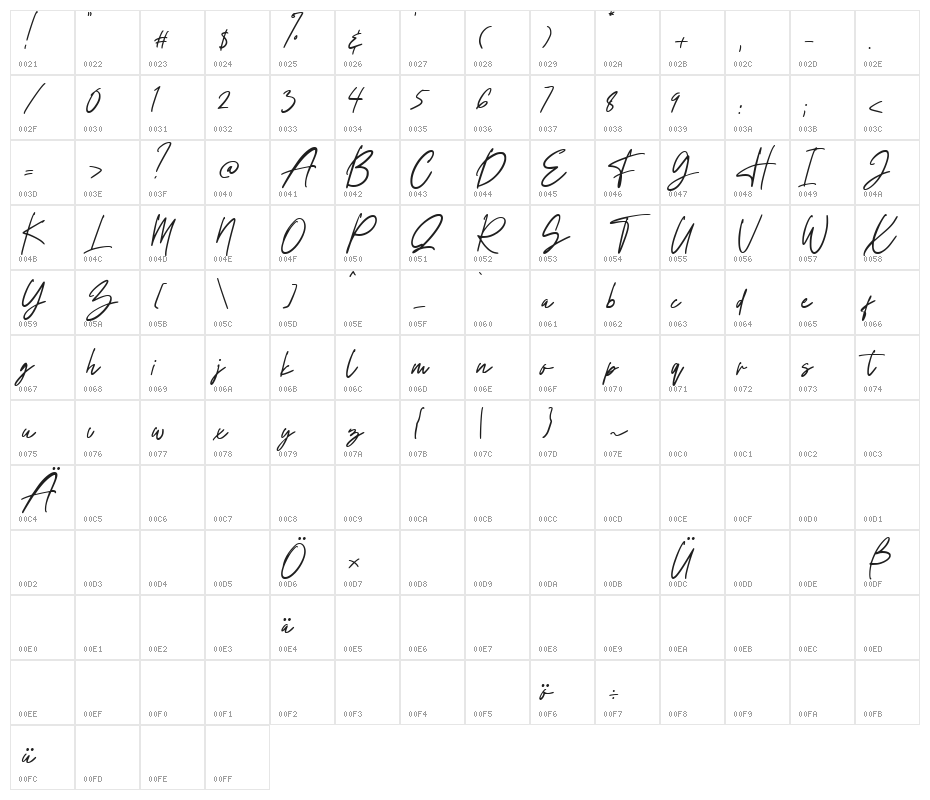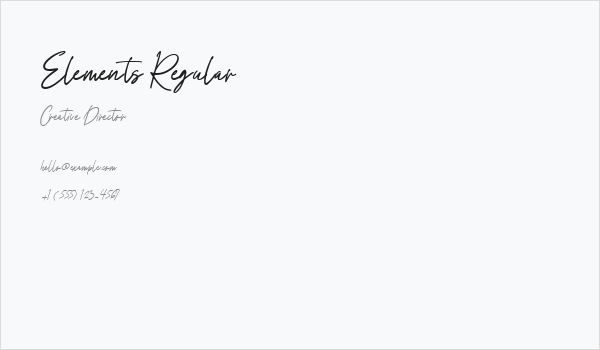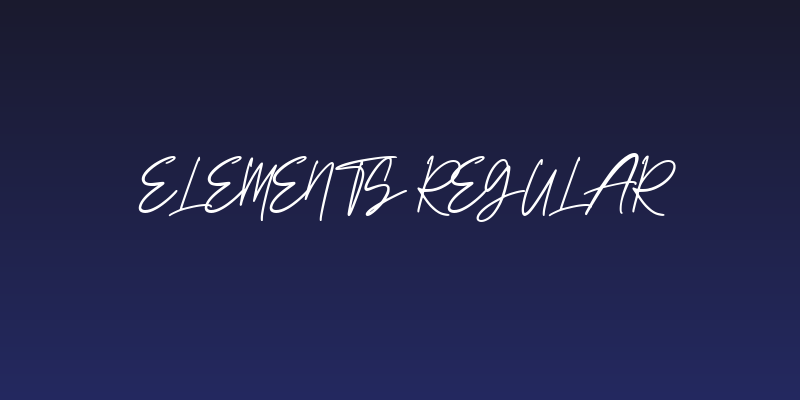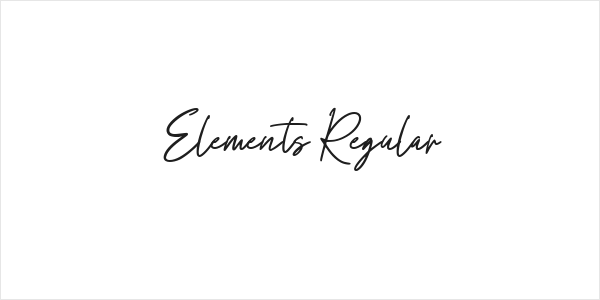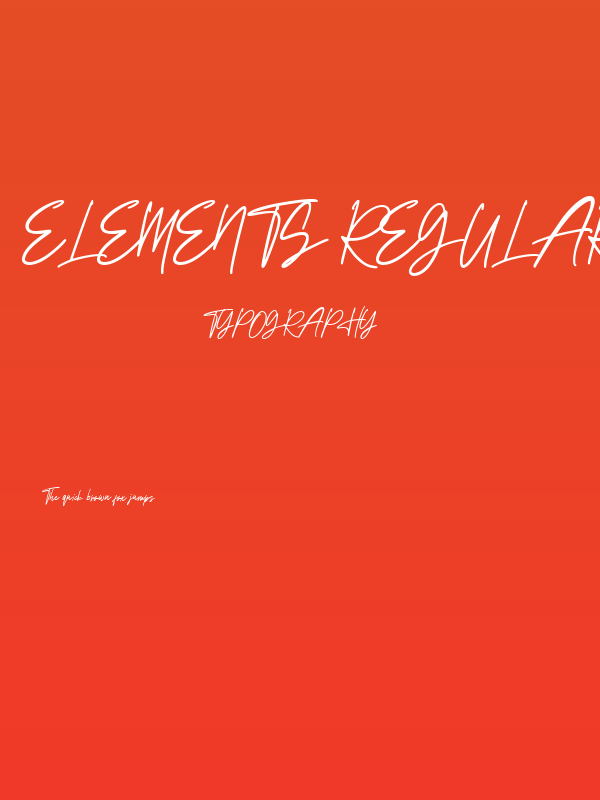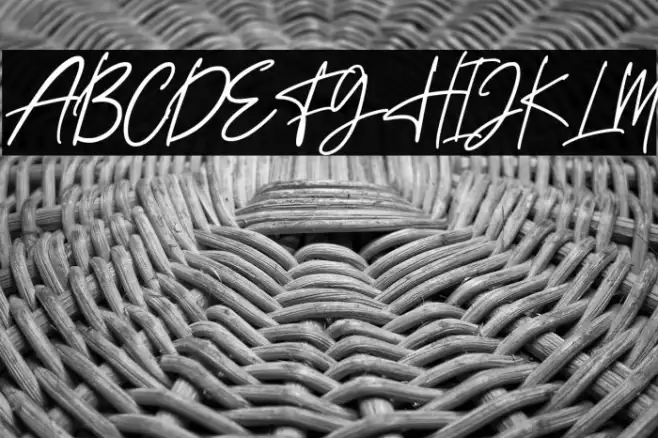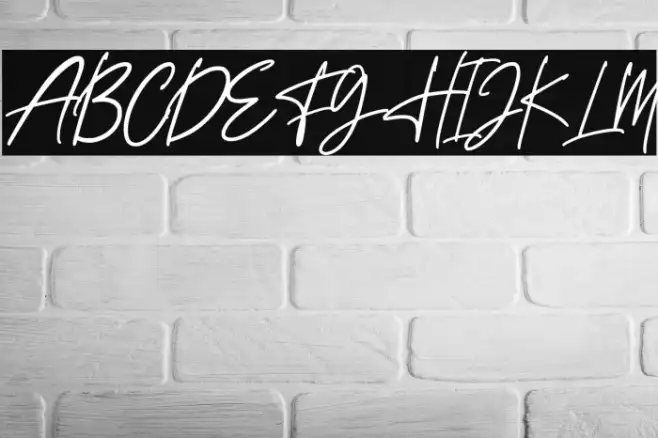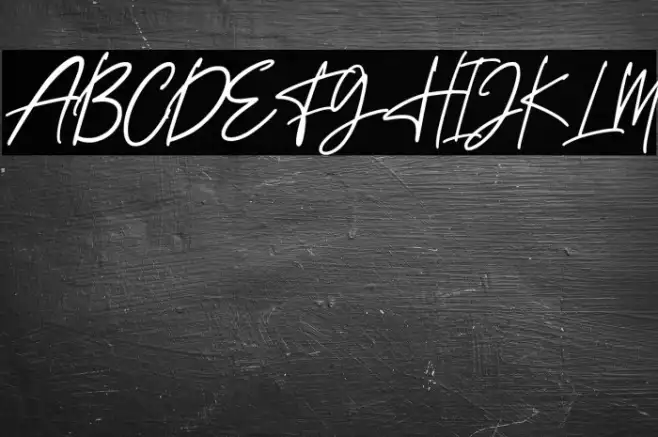
Elements Regular Font
Elements Regular Description
This font features a dynamic and expressive handwritten style, characterized by its fluid and cursive strokes. The letters are interconnected with a natural flow, giving it a personal and artistic touch. The uppercase and lowercase letters maintain a consistent style, with a slight slant that adds to the casual and informal appearance. The numerals and special characters are crafted with the same attention to detail, ensuring uniformity across the entire set. The overall design is both elegant and approachable, making it suitable for a variety of creative applications.
| Use Case | Logos, Invitations, Greeting cards |
| Proposed Projects | Ideal for personal branding, invitations, greeting cards, and artistic projects that require a personal touch. |